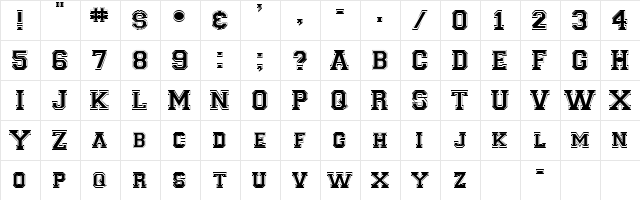
CLANCYA Regular
Design Context for CLANCYA Typeface
CLANCYA takes a measured approach to typography — its balanced proportions and neutral character make it a reliable workhorse for both digital and print work.